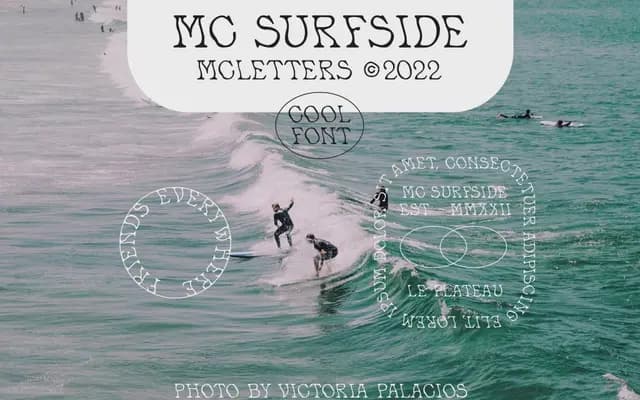
MC Surfside
A casual display typeface from McLetters with a retro surf aesthetic, sold at an accessible price point for personal and commercial use.
MC Surfside carries the relaxed energy of beach and surf culture, fitting for branding, packaging or signage that wants a vintage Californian feel. The page offers a single style available across desktop, e-pub, app and webfont licences. At $15, it sits in the affordable end of the commercial display market.
The name and preview suggest a casual, beachy display style typical of retro surf lettering; classified as display script given its likely hand-lettered or brush character.